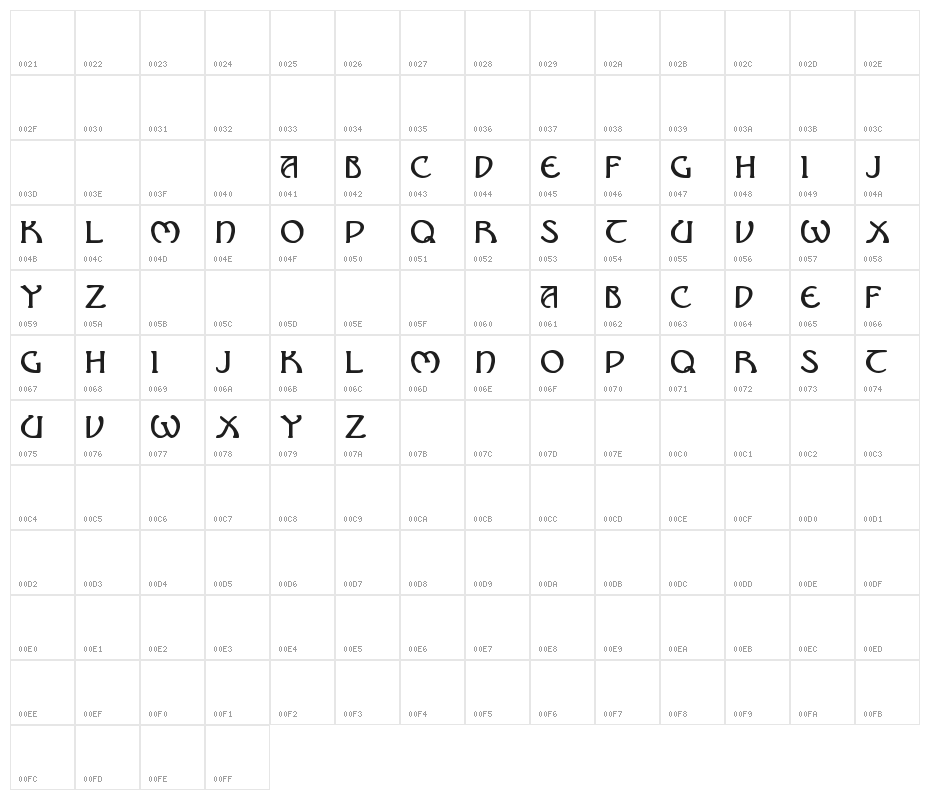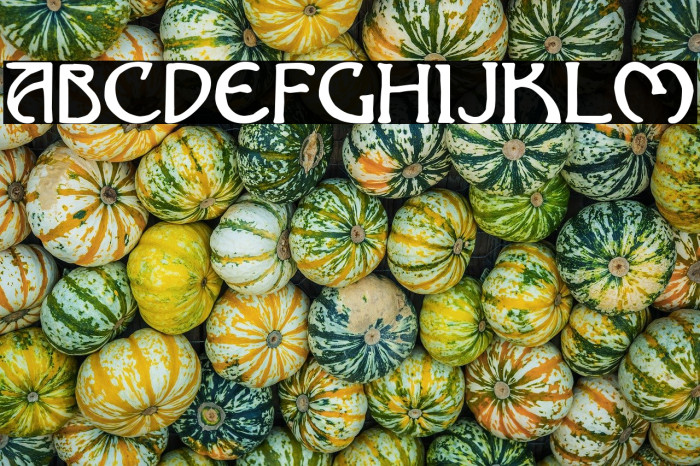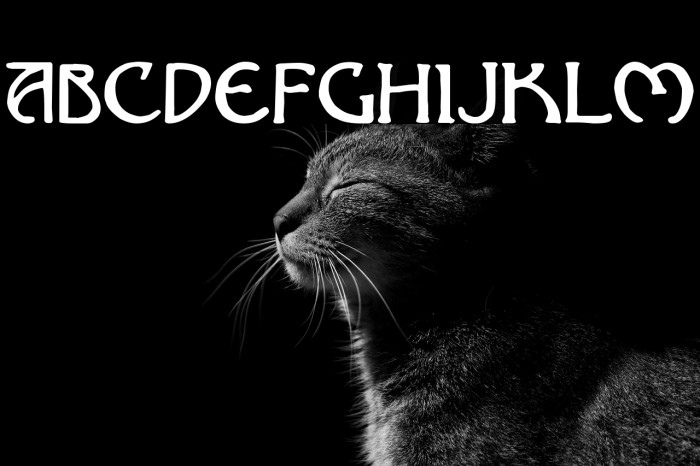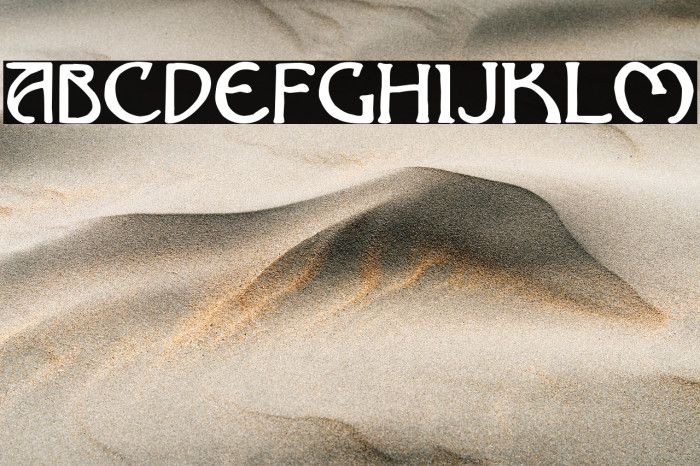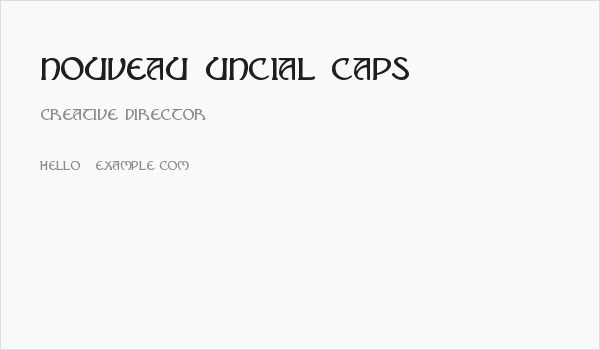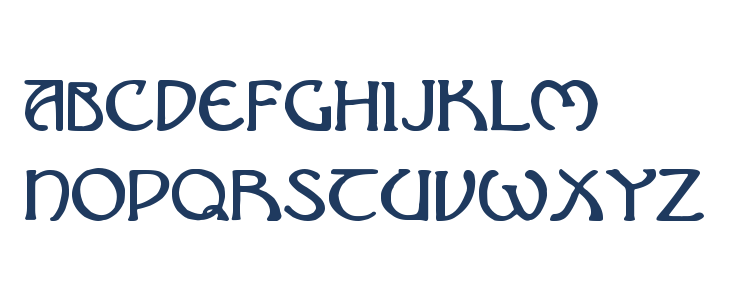
Nouveau Uncial Caps Font
Nouveau Uncial Caps Description
This font features a unique blend of traditional and modern elements, characterized by its uncial-inspired letterforms. The uppercase letters exhibit a distinct, rounded style with a slight medieval flair, making it stand out in any design. The strokes are consistent in weight, providing a harmonious and balanced appearance. The overall design is both elegant and bold, suitable for creating a strong visual impact. The font's artistic curves and smooth lines evoke a sense of history and craftsmanship, ideal for projects that require a touch of sophistication and tradition.
| Proposed Projects | Ideal for historical or fantasy-themed designs, book covers, invitations, and branding that requires a classic touch. |